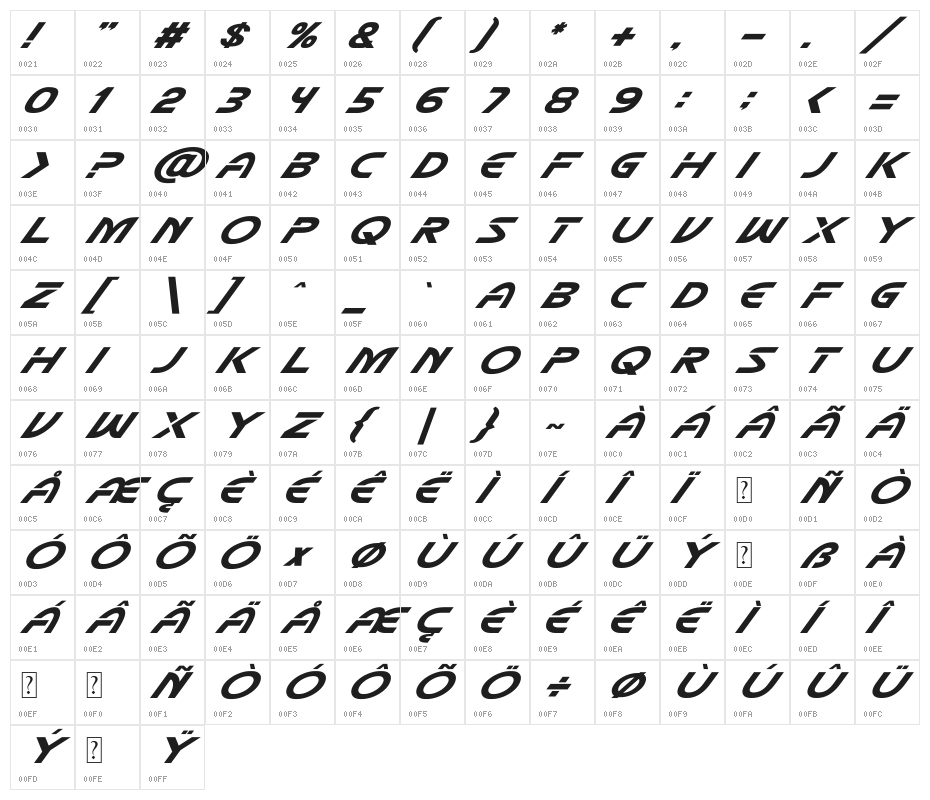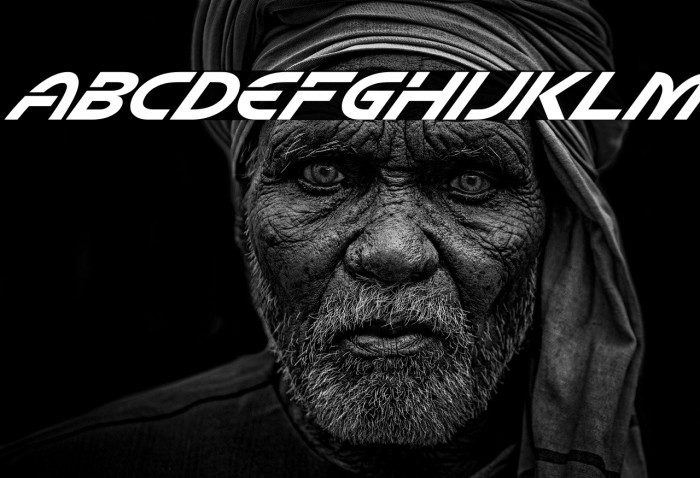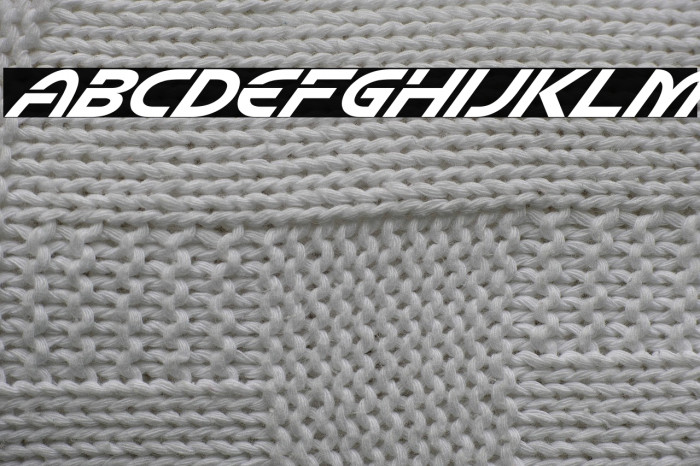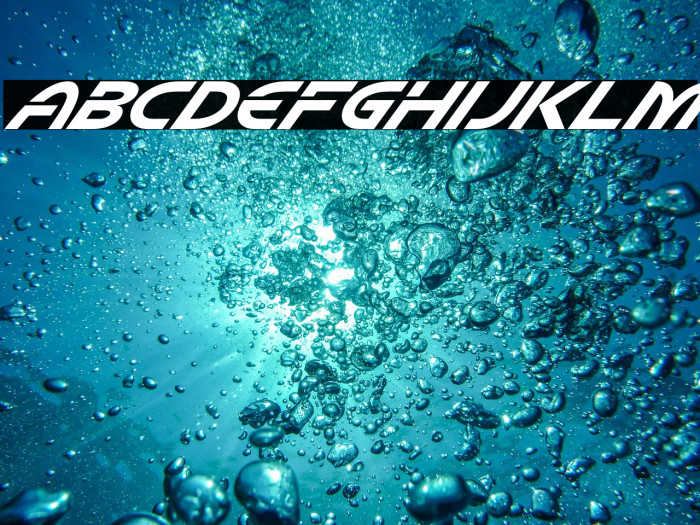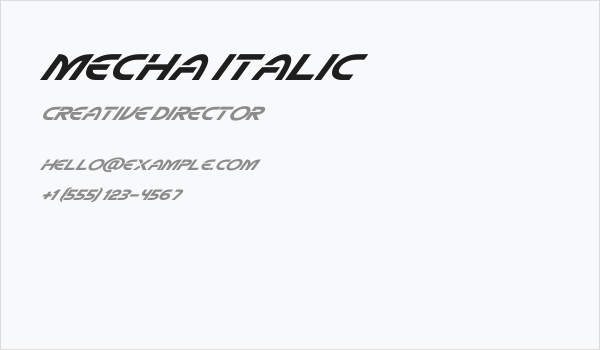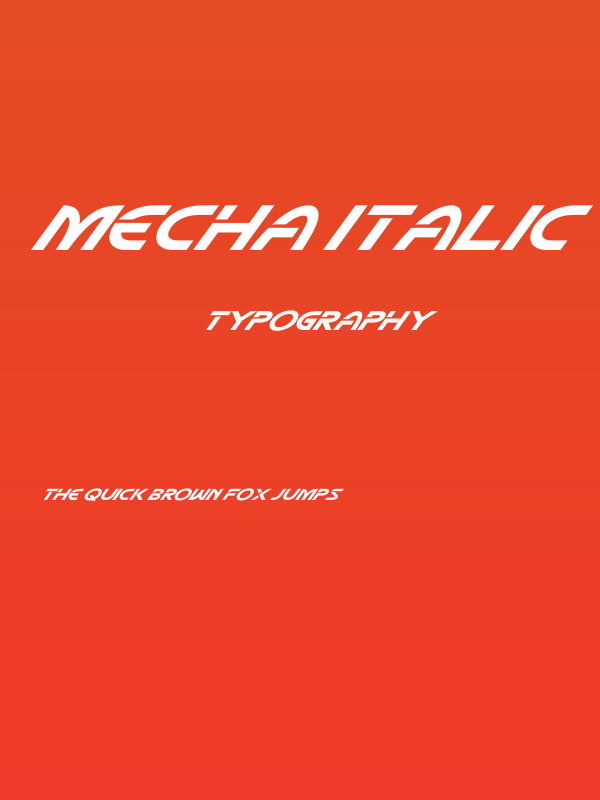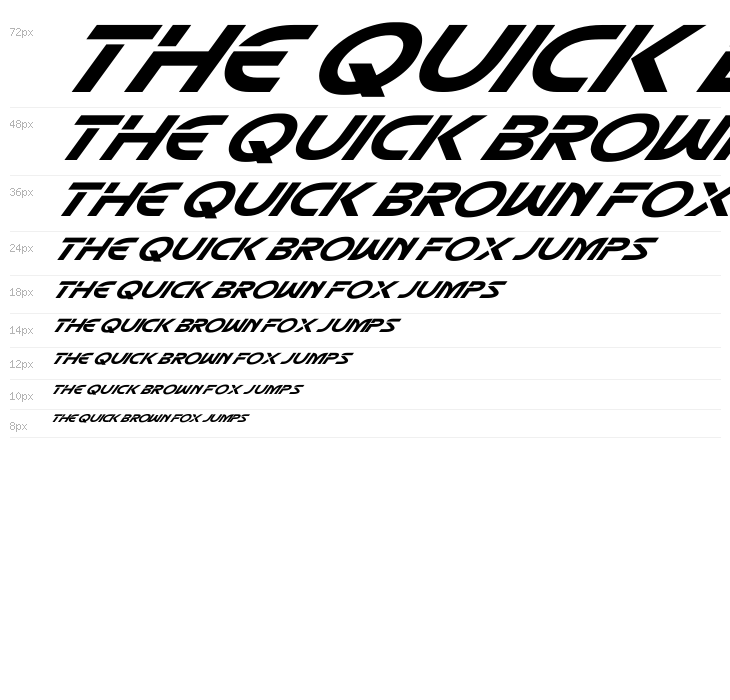
Mecha Italic Font
Mecha Italic Description
This font features a futuristic and dynamic design, characterized by its italicized and angular letterforms. The strokes are bold and consistent, giving it a strong presence. The characters are slightly condensed, enhancing the sleek and modern aesthetic. The font includes a full set of uppercase and lowercase letters, numerals, and a variety of special characters. Its design is reminiscent of high-tech or sci-fi themes, making it ideal for projects that require a modern and edgy look.
| Proposed Projects | Ideal for tech-related branding, sci-fi movie posters, video game titles, and futuristic-themed designs. |